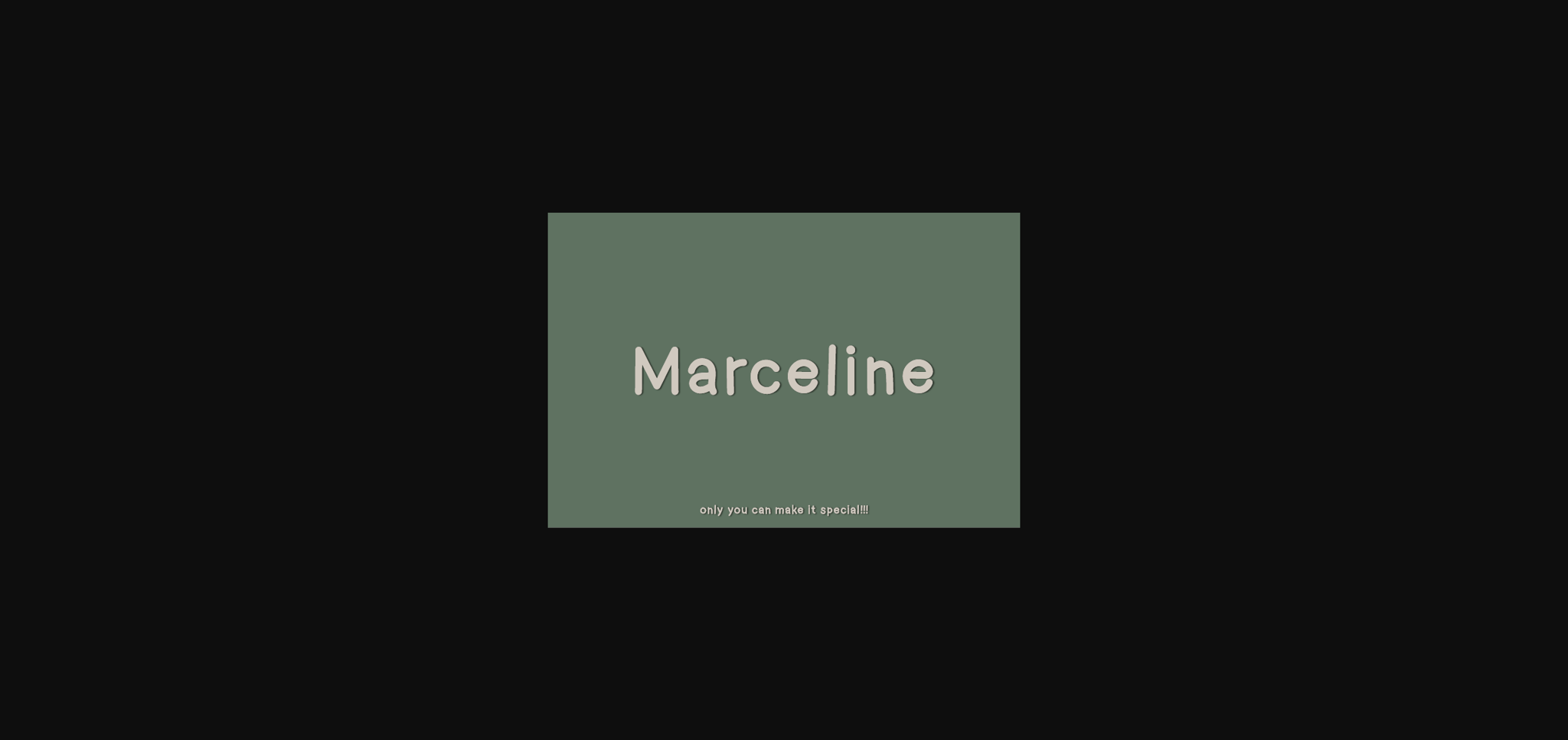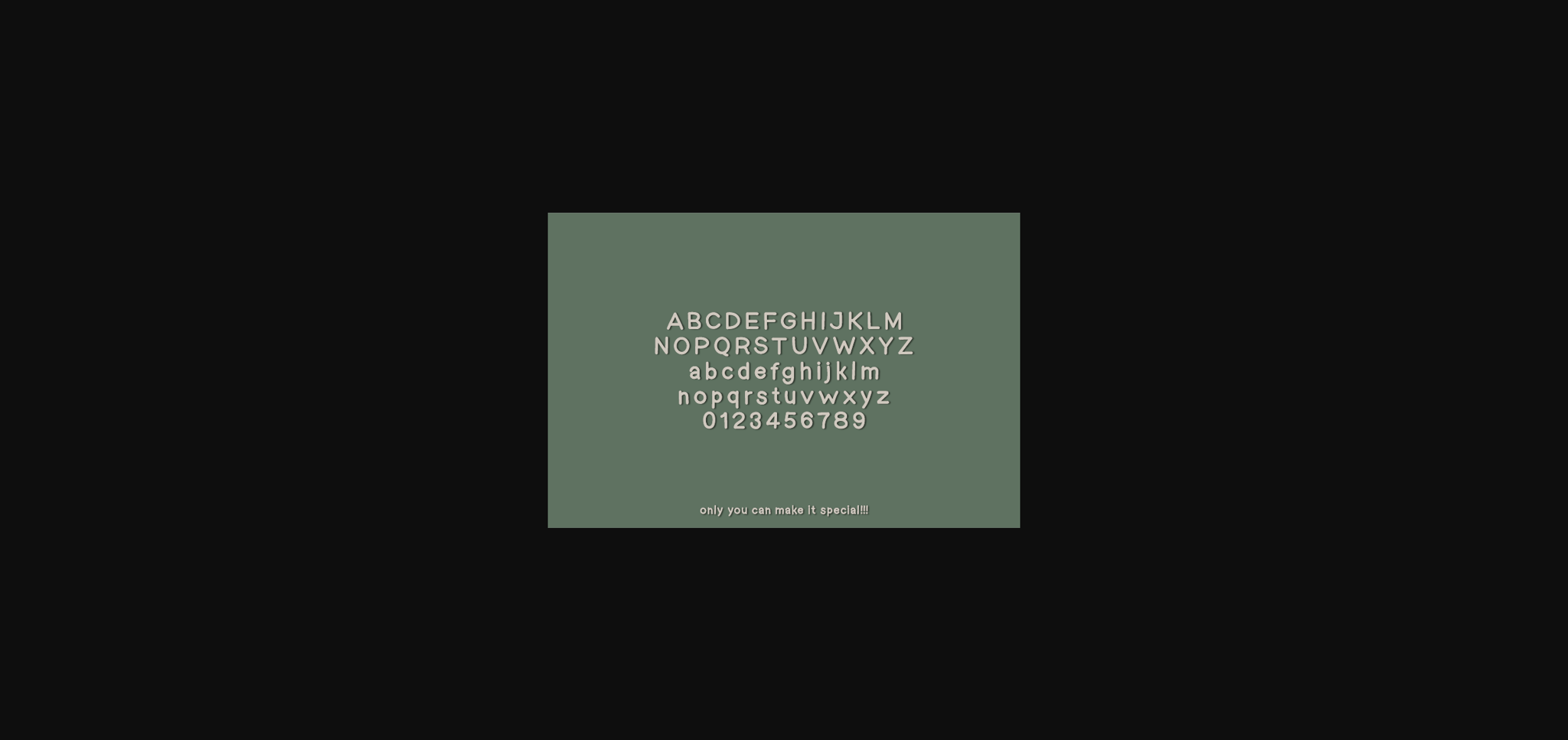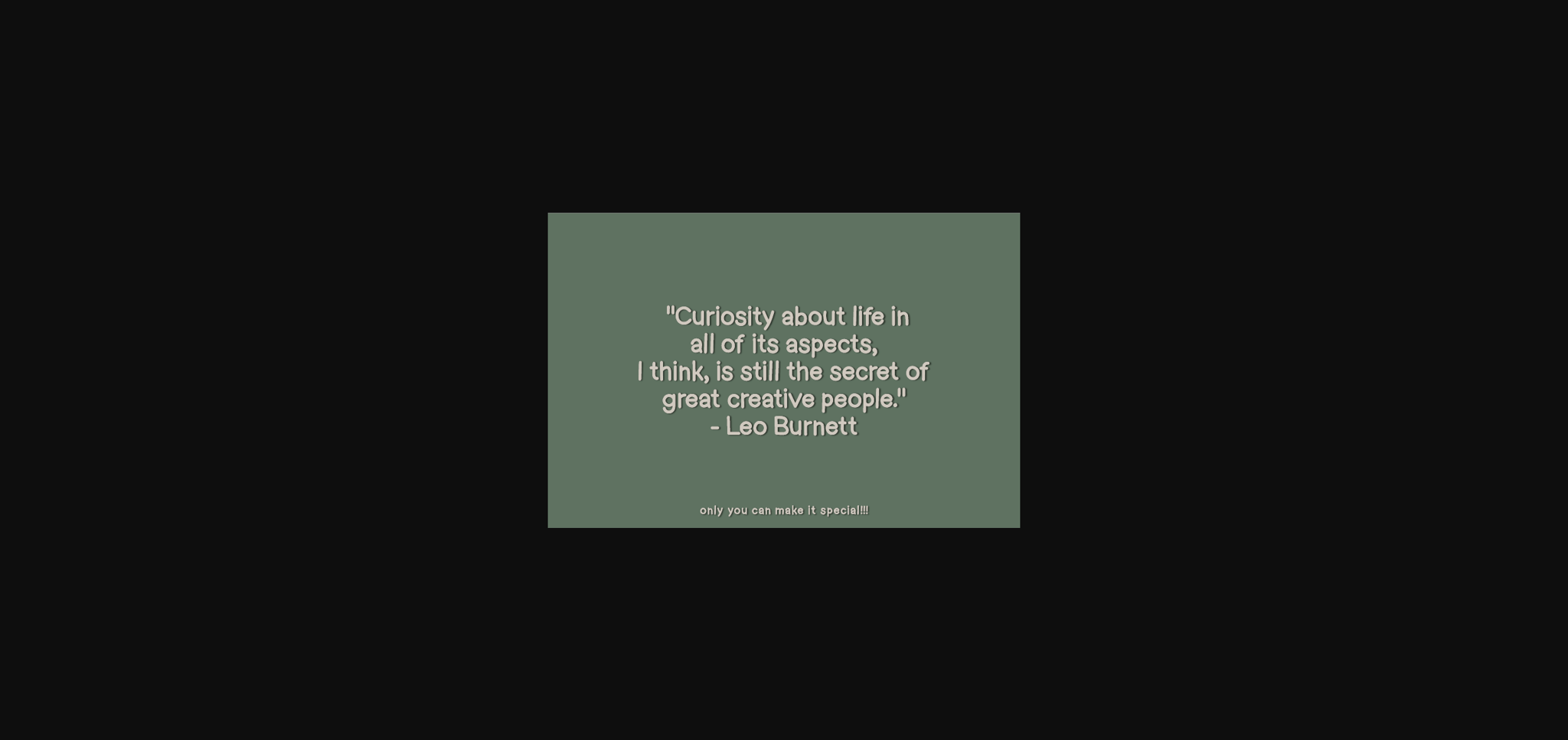
About Marceline Font
Marceline is a natural sans serif font made without changing a single node in each character’s indentation – this makes this font very interesting and unique. Perfect for quotes, notes, tees, and any product design.